Font choice rarely feels neutral; it quietly shapes brand personality before customers process a message. In practice, typography, font psychology, brand voice, and visual identity work together, influencing perception through tone, style, spacing, and weight.
I have seen serif fonts lend sophistication, while sans-serif fonts often signal modernity; yet context matters more than fashion. A thoughtful font selection can express trust, reinforce brand identity, and make brand traits feel credible.
How Typography Shapes Brand Identity & Perception
Typography can shape brand perception before audiences consciously read a message. In my practice, typeface choices, visual identity, and brand voice work together across channels, giving letters recognizable character that strengthens trust and clarifies values.
A sans-serif typeface may signal accessible modernity, while serif font choices can suggest elegance or classic charm. The key is purposeful alignment: harmony, aesthetics, brand messaging, and brand authority should reinforce the personality consumers perceive.
Typography In Logo Design & Recognition
Logo earns memory through brand name, recognizable symbol, and visual consistency, but typography decides whether that mark feels relevant. I find distinctive brand presence strongest when letters express brand essence without sacrificing clarity or recognition.
For recognition, I test the custom font across print, digital, and other platforms, checking visual integrity, media adaptability, and quality. Strategic refinements preserve a unified brand look, making familiar lettering faster to identify easily today.
Choosing The Right / Enduring Fonts For A Brand
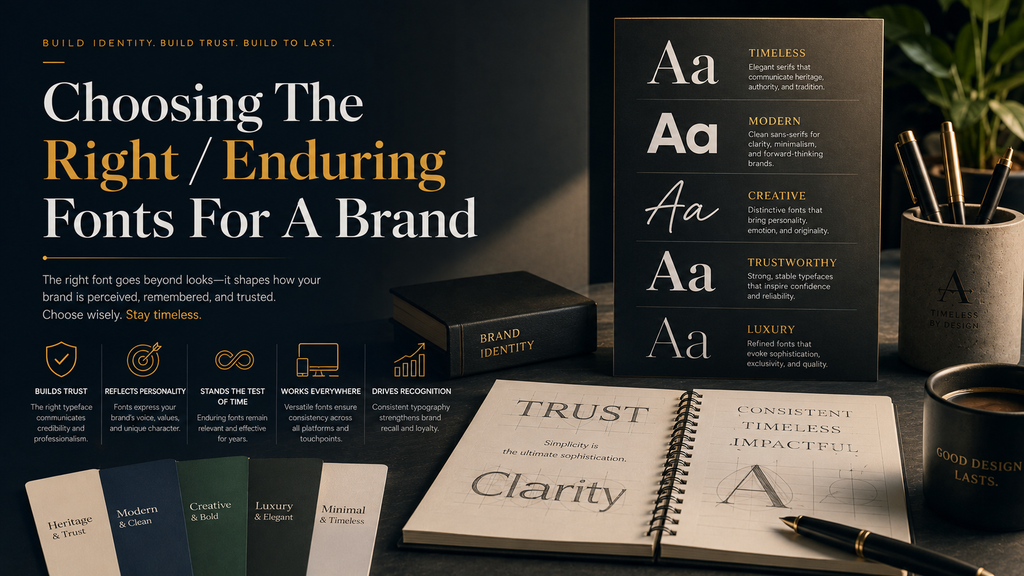
Enduring branding needs novelty; brand fonts should retain consistency across platforms, strengthen identity, and support recognition. I test candidates against layouts because durable typefaces protect trust while keeping the feel credible as the business evolves.
I often favor flexible choices over fashionable ones, checking diverse applications, weight styles, and readable settings against brand personality. A strong system can reinforce professionalism, competence, and elegance, while accommodating new ideas without weakening consistency.
How Dublin Brand Identity Experts Strengthen Strategic Choices
Dublin experts begin with thorough analysis of target audience, touchpoints, and reinforcing brand identity. Through crisp communication, they test readability, functionality, and flexibility before approving typography that feels professional rather than merely stylish, with enduring appeal.
In practice, specialists favor aligning typography with strategy while protecting brand tone across varied contexts. They question dated choices, balance visual interest with consistency, and seek timeless over trendy systems that preserve recognizable symbol value.
Make Your Brand Speak With Type That Ranks High In Authority
Authority in typography begins when font choices reinforce company promises without adding doubt. In practice, I assess marketplace perception, consumer psychology, and design together, because credible type makes strategic positioning feel deliberate and trustworthy today.
Strong type should clarify strategic choice, sharpen marketplace awareness, and prevent diluted messages across touchpoints. Brand identity experts can connect typography to stakeholders while defining measurable outcomes, ensuring authority comes from highly consistent visual decisions.
What Is The Difference Between Brand Font And Brand Typeface?
A brand typeface is the broader letterform design chosen for personality; a font is its usable digital or print implementation, including specific glyphs, font styles, scale, and proportion across actual applications and digital brand systems.
From my practice, this distinction matters because a typeface defines visual character, while the font delivers practical behavior: letter spacing, width, font functionality, and documentation help teams apply the same identity consistently across active channels.
Custom Font Design Approach
A custom font should begin with the brand typeface rather than decoration, shaping a recognizable visual identity system through unique design characteristics. In practice, I test weight, harmony, and readability against audience expectations before approving direction.
The strongest approach balances brand personality perceptions with practical requirements across website, packaging, and digital touchpoints. A tailored system can create distinctive recognition, strengthen credibility, and preserve consistent communication while allowing carefully controlled font choices to evolve.
Study 1 Findings — Type Font Characteristics & Brand Personality Dimensions
Study 1 suggests that type font characteristics can steer brand personality perceptions before readers process. In my audits, weight, high harmony fonts, naturalness, and elaborate details repeatedly shape sincerity, excitement, competence, and ruggedness through judgment.
A brand font affects perception by shaping personality, expressing core values, and triggering emotions before readers process words. In practice, I’ve found a distinctive visual voice builds strength, recognition, and trust across touchpoints today consistently.
How To Use Fonts In Branding?
In practice, I treat branding as a system: choose a font whose style reinforces approachability, then test color scheme, spacing, and hierarchy across touchpoints. A purposeful selection keeps the visual brand recognizable without feeling rigid.